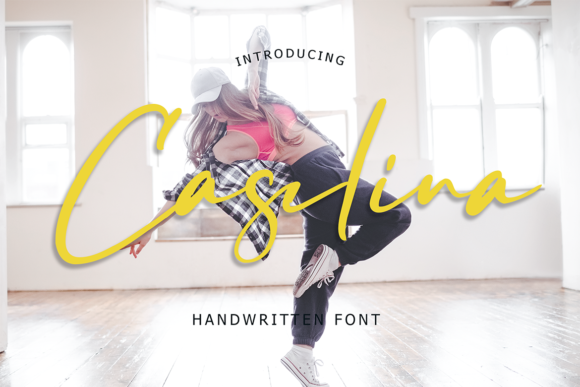
Have you ever stared at a blank canvas, trying to bring your creative vision to life? Maybe it was a blog post, a social media graphic, or a DIY project that just needed that extra special something. Whatever it is, we’ve all been there – searching for the perfect font to elevate our designs and make them truly stand out.
That’s where the Caselina Font comes in – a beautiful, elegant handwritten font that will add a touch of sophistication to any project. Whether you’re a seasoned designer or a crafty DIY enthusiast, this font is sure to take your creative ideas to the next level. With its unique, flowing style, the Caselina Font is perfect for adding a personal touch to your designs, making it a valuable addition to any designer’s toolkit.
Caselina Font Key Features
- Font Family: Caselina Font is a high-end, elegant script font, designed for various applications.
- Unique Characteristics: Features intricate, hand-crafted details and flowing connections, giving it a sophisticated and luxurious feel.
Caselina Font Review
Overall, I’d say that the Caselina Font is a beautiful and elegant addition to any design project. Here are some of its strengths: ✨
- Unique flair: Caselina Font has a distinct, whimsical feel that sets it apart from other fonts.
- Legibility: Despite its ornate appearance, the font is surprisingly easy to read, making it suitable for body text as well as headings.
- Design versatility: The font’s classic look means it can be used in a wide range of design projects, from vintage-inspired layouts to modern, minimalist designs.
- Some users may find it too ornate: While I think the font’s flair is a strength, some designers might find it too busy or overwhelming.
- Not ideal for super-fast text: Due to its unique design, Caselina Font may not be the best choice for projects that require super-fast reading speeds.
Overall, I think the Caselina Font is a lovely addition to any designer’s toolkit, but it’s essential to consider its limitations when choosing a font for your project.
Tips for Getting the Most Out of Caselina Font
For best results, use Caselina Font in headings and titles to create a professional and elegant look.
Use Caselina Font in combination with other fonts to create a unique and stylish design.
Caselina Font is ideal for:
Branding and marketing materials
Event signage and displays
Digital and print publications
Alternatives to Caselina Font
Montserrat Font is a sans-serif typeface that originated from Buenos Aires, Argentina. It’s a versatile font suitable for body text and headings in various digital platforms. Use it for clean and modern designs, especially in urban settings.
Montserrat Font is more geometric and modern compared to Caselina Font, which has a softer and more rounded feel. Montserrat is ideal for digital applications, while Caselina is more suitable for print materials.
Great Vibes Font is a modern calligraphy typeface that’s perfect for creating elegant and stylish designs. It’s suitable for headings, titles, and other display text. Use it for luxury brands, weddings, and other high-end events.
Great Vibes Font is more decorative and elaborate compared to Caselina Font, which has a simpler and more understated design. Great Vibes is ideal for creating a sense of luxury and sophistication, while Caselina is more suitable for everyday use.